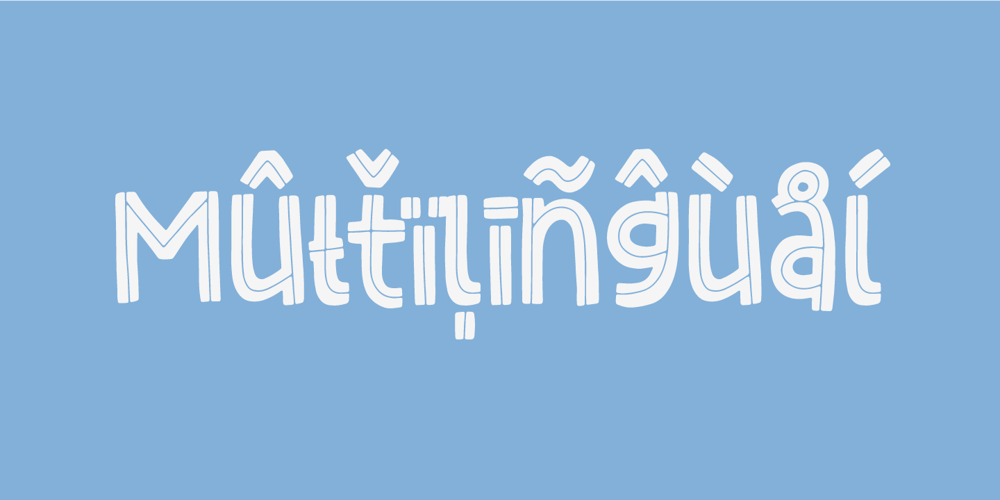
Pillow Fight Font Family was designed by Jakob Fischer and published by PizzaDude.dk. Pillow Fight contains 2 styles and family package options. A pillow fight is usually quite refreshing, no matter what age you have. And here is a font which has the exact same effect on your designs! The Pillow Fight font is multilingual, handmade and is a kind of fresh unicase with a brushy breeze! Go for sayings, short messages or catching headlines when using Pillow Fight!